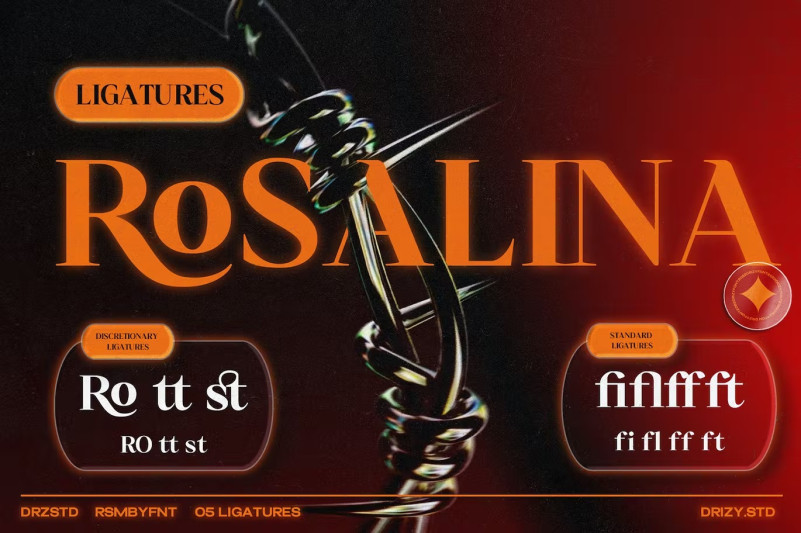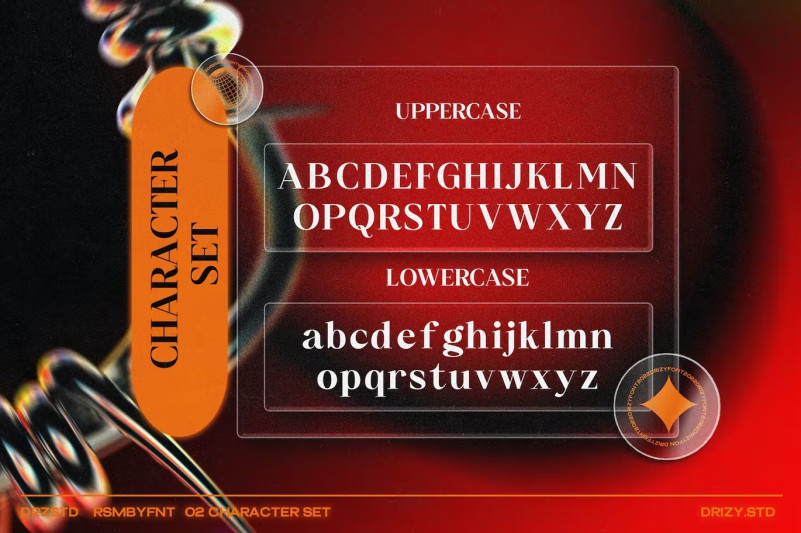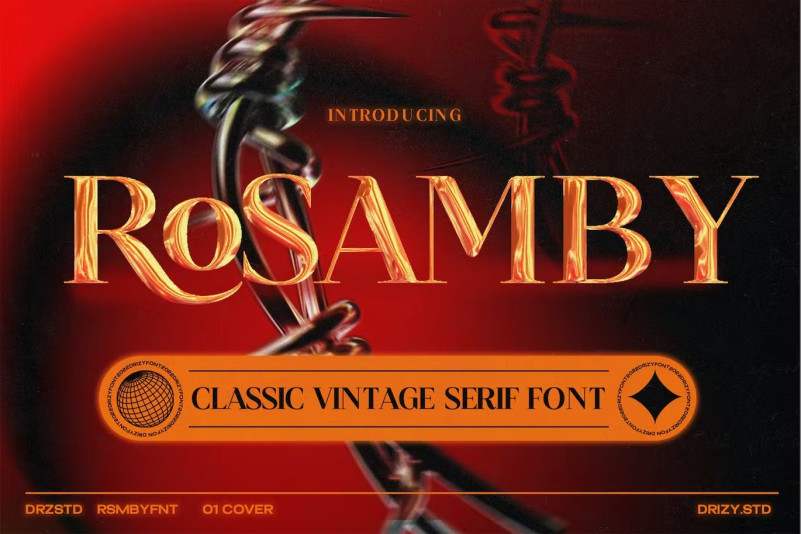
Rosamby – Classic Vintage Font
Rosamby is a Classic Vintage Font from Drizy studio. Offering all the basic styles you will need especially Vintage theme project.
Rosamby Features: Uppercase & Lowercase Numeral & Punctuation Multilingual Alternates Ligatures